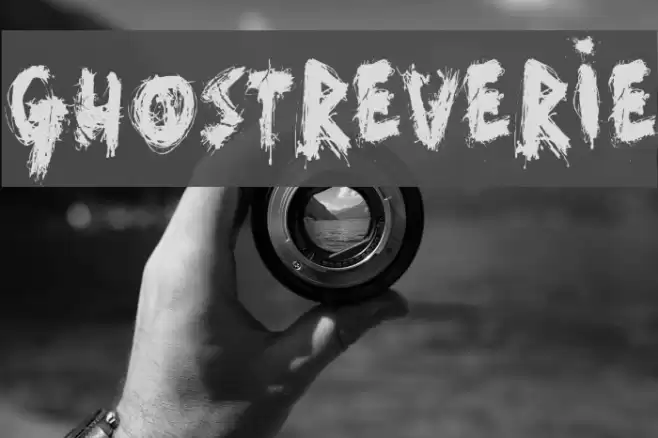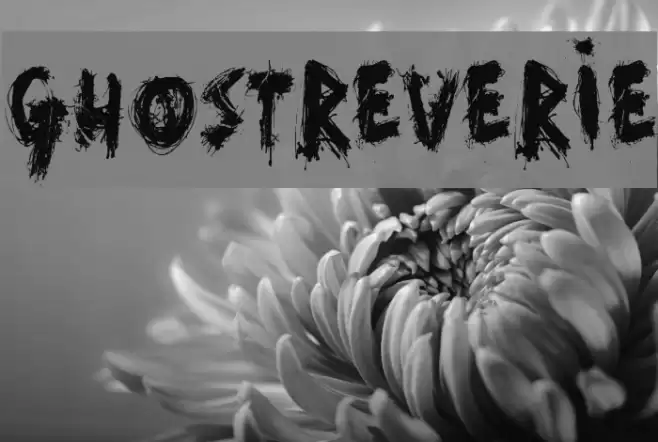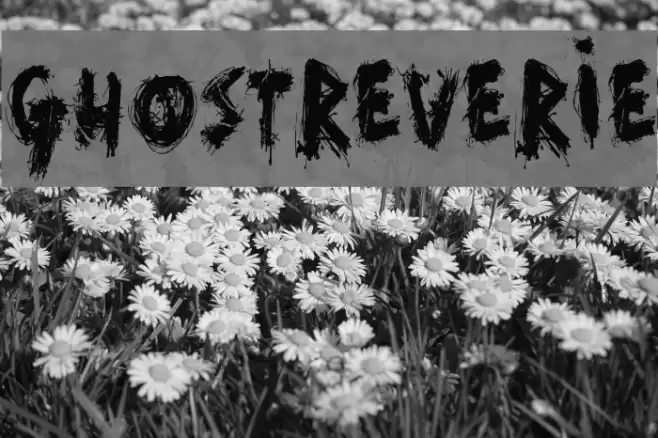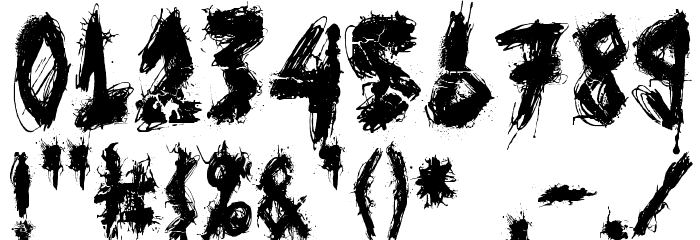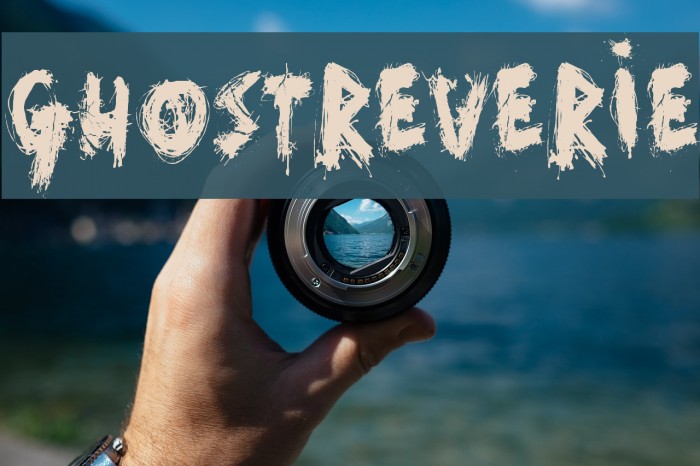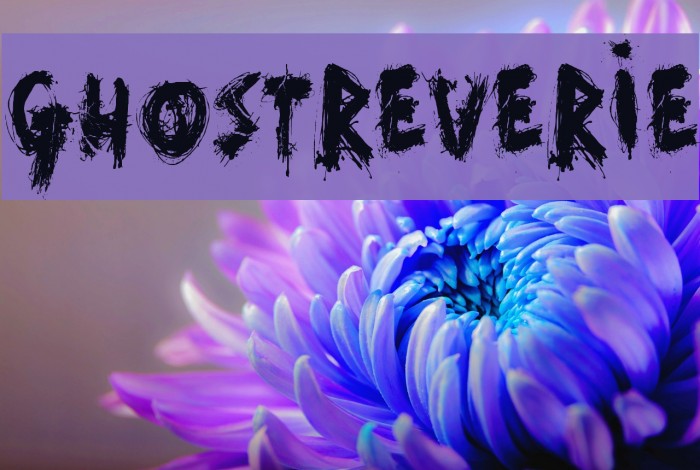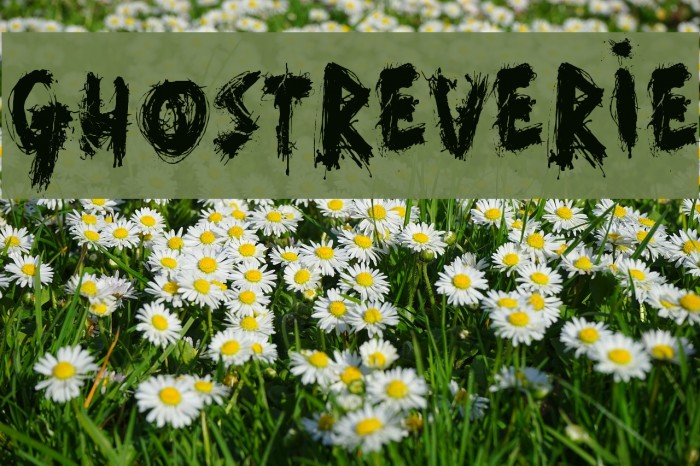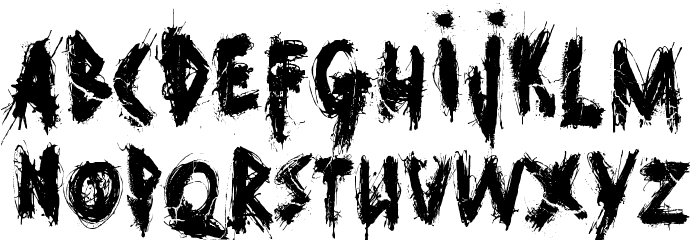
GhostReverie Font
GhostReverie Description
This font exudes a haunting and chaotic energy, with each character appearing as though it has been scratched or painted with a rough brush. The strokes are uneven and jagged, giving it a distressed and grungy appearance. The letters are bold and have a high contrast between thick and thin strokes, adding to the dramatic effect. The overall design is highly decorative and expressive, making it suitable for projects that require a bold and edgy aesthetic. The font's unique style captures attention and evokes a sense of mystery and intensity.
A bold, grungy font with jagged, distressed strokes for a dramatic effect from Uncategorized fonts.
- Proposed Projects: Ideal for horror movie posters, Halloween event flyers, album covers, and edgy branding projects.